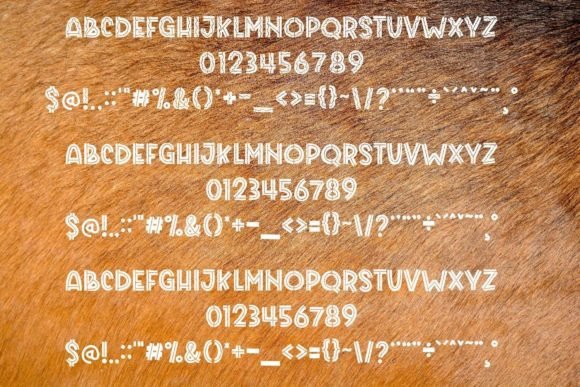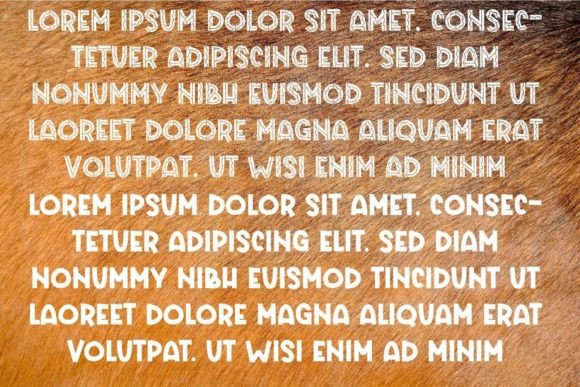
The Aku-Aku Font: A Tribal Treasure for Your Creative Projects
I’ll never forget the design struggle I faced while working on a project for a client’s tribal-themed event. I was on a mission to find the perfect font that would capture the essence of traditional tribal elements, but my usual go-to fonts just weren’t cutting it. That’s when I stumbled upon the Aku-Aku font, and it was love at first sight! ✨ In this article, I’ll share my experience with this unique font, its features, and how to make the most of it in your creative projects.
An Honest Review of Aku-Aku Font
• 🌟 Unique and interesting style inspired by traditional tribal elements
• ✅ Perfect for a wide range of creative projects, from event branding to craft designs
• 🎨 Highly decorative and eye-catching, making it perfect for headlines and titles
While I absolutely love the Aku-Aku font, there are a few quirks to be aware of: 🤔
• ⚠️ Limited use for body text, as it’s quite decorative and may be difficult to read in large blocks
• ⚠️ Some characters may not work well in combination with others, requiring manual kerning
The Designer Inspiration Behind Aku-Aku Font
The Aku-Aku font was inspired by the rich cultural heritage of traditional tribal designs. The font’s creator was fascinated by the intricate patterns and bold lines found in tribal art and sought to capture that essence in a modern, decorative font. The result is a unique and eye-catching font that’s perfect for creative projects that require a touch of tribal flair.
Font Name Aku-aku Font
Author Rashdrawn
Q: What is the Aku-Aku font inspired by?
A: The Aku-Aku font is inspired by traditional tribal elements and designs.
Q: Is the Aku-Aku font suitable for body text?
A: While the Aku-Aku font is beautiful, it’s not ideal for large blocks of body text. It’s best used for headlines, titles, and decorative elements.